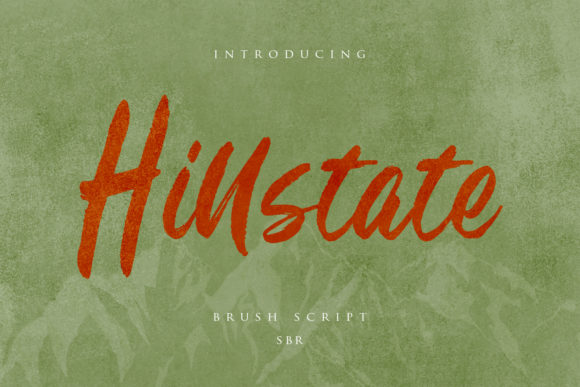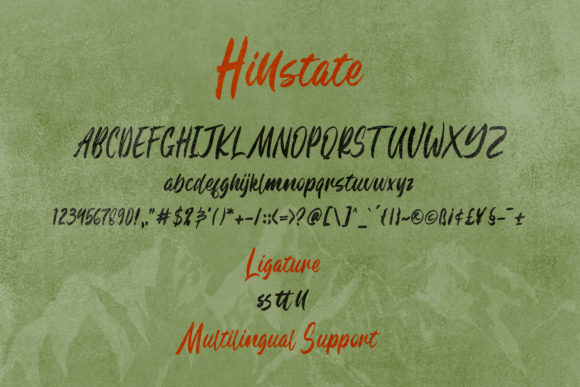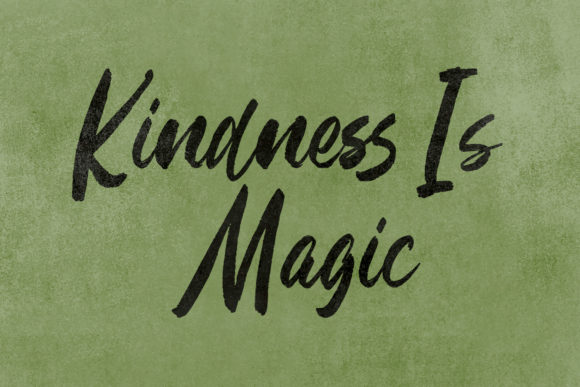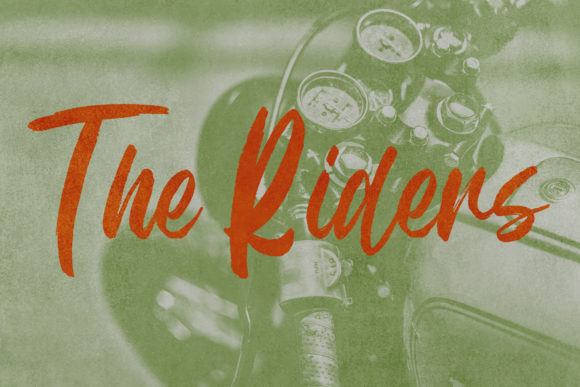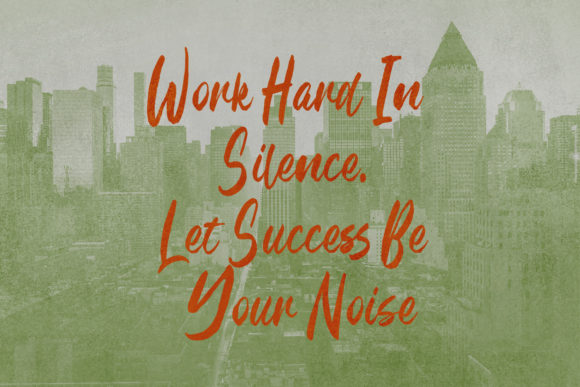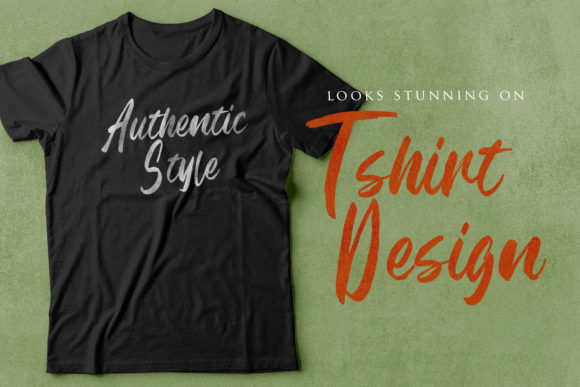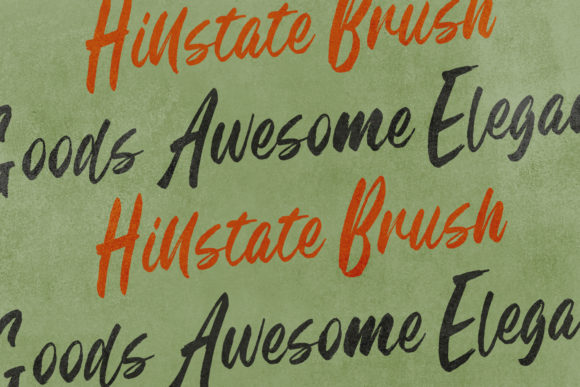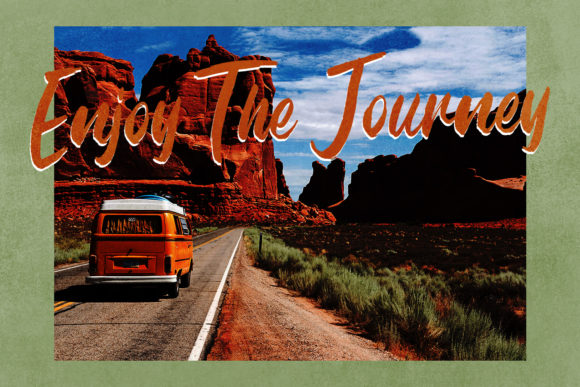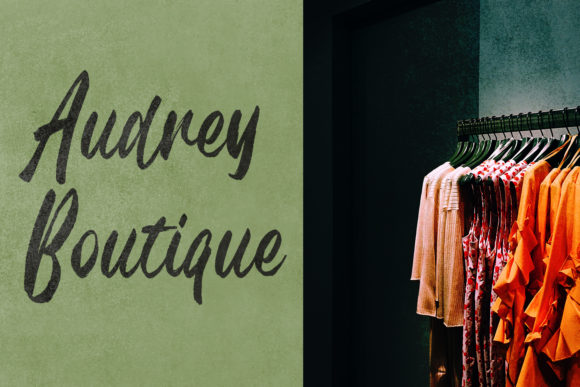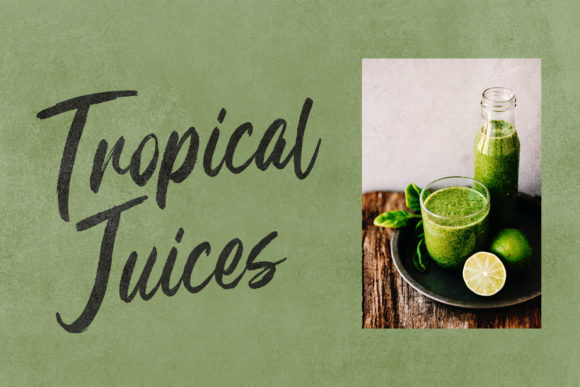
Hillstate Font
About Hillstate Font
Hillstate features a gorgeous natural style that evokes a fashionable and authentic feel. This beautiful script will turn any design idea into a true standout.